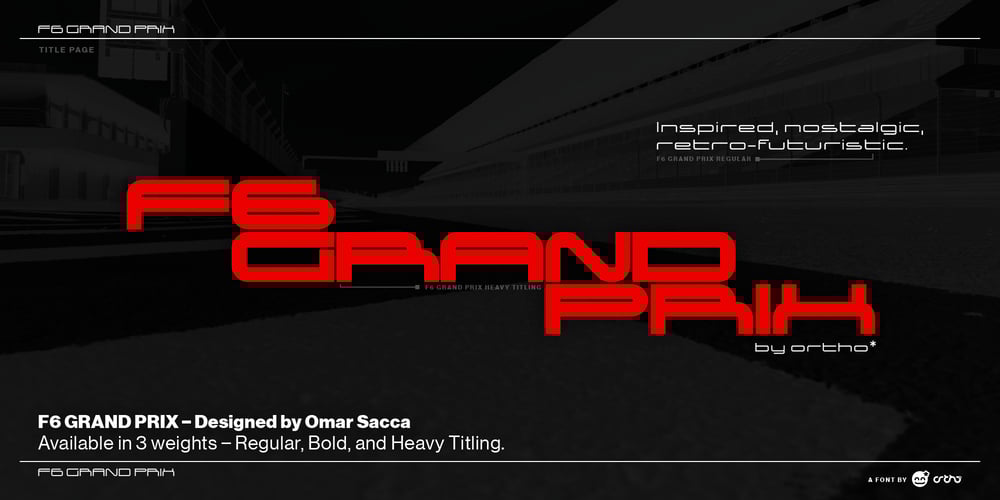
F6 Grand Prix Font Family was designed by Omar Sacca and published by Ortho. F6 Grand Prix contains 3 styles and family package options. It’s here! Designed with the future in mind, while paying tribute to a rose-tinted past we all deeply cherish. As usual for Ortho’s fonts, F6 Grand Prix is a display type meant to engender a feeling of freedom and potential in any designer’s hands. Although it comes ready for any occasion, it’s also incredibly malleable and quickly-transformed for even the most specific projects. Inspired by the classic Y2K styles seen in series such as Wipeout and SSX, nothing will quench the need for speed quite like F6 Grand Prix! This stylish font sports a comprehensive Western Latin glyph set of 192 glyphs (per typeface!) as well as meticulously-tuned kerning pairs. Whether it be for titles, body copy, or logotype design, F6 Grand Prix is sure to be a powerful tool in any modern-day designer’s belt!